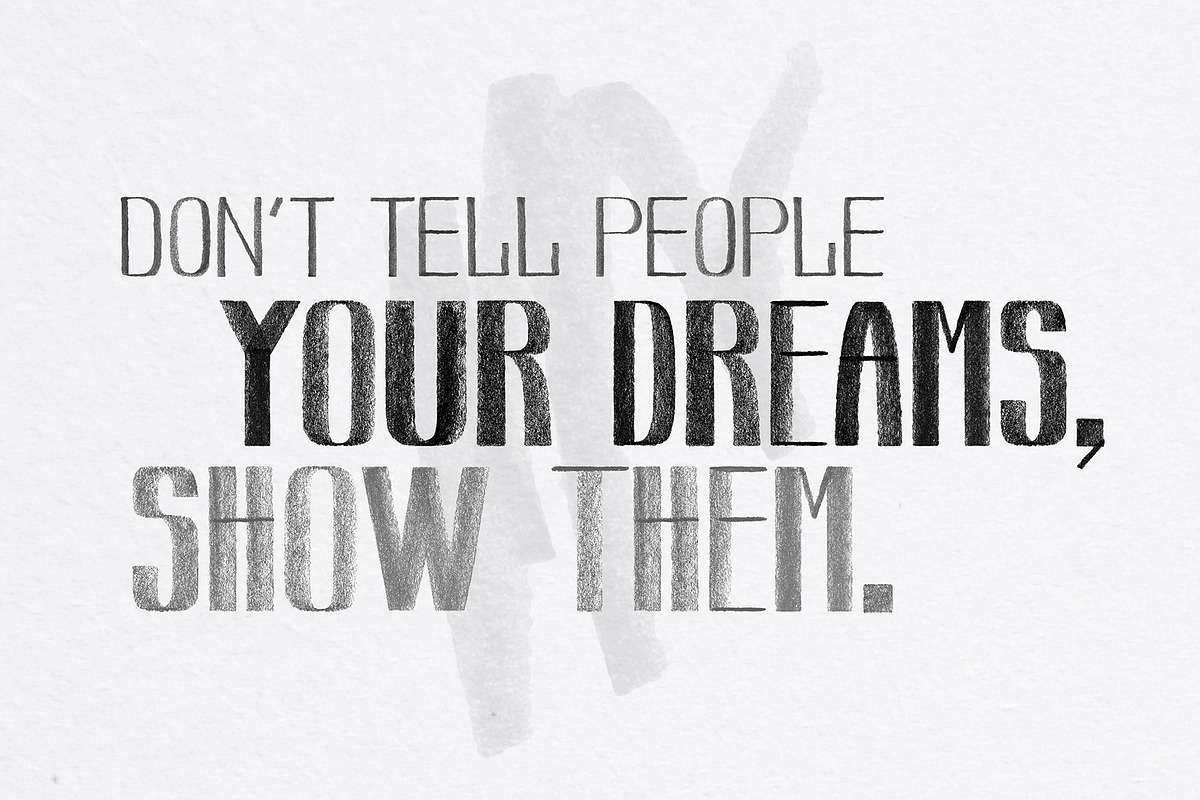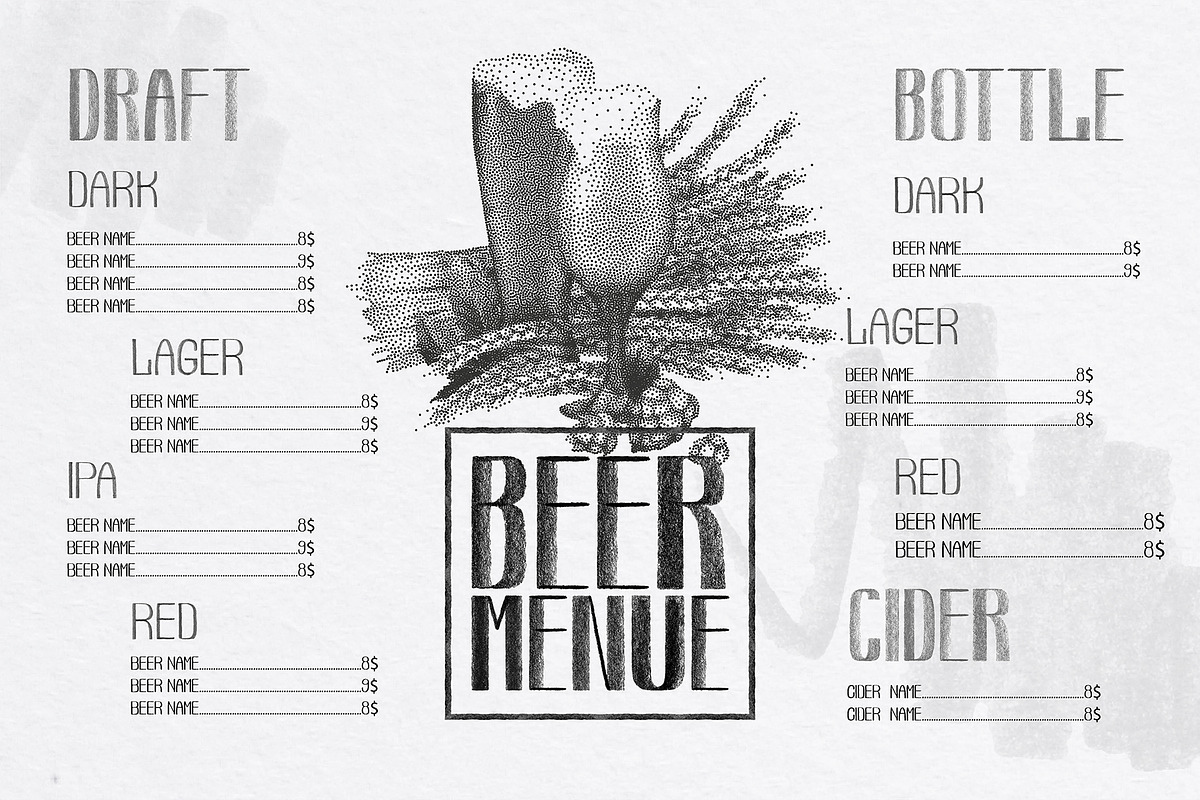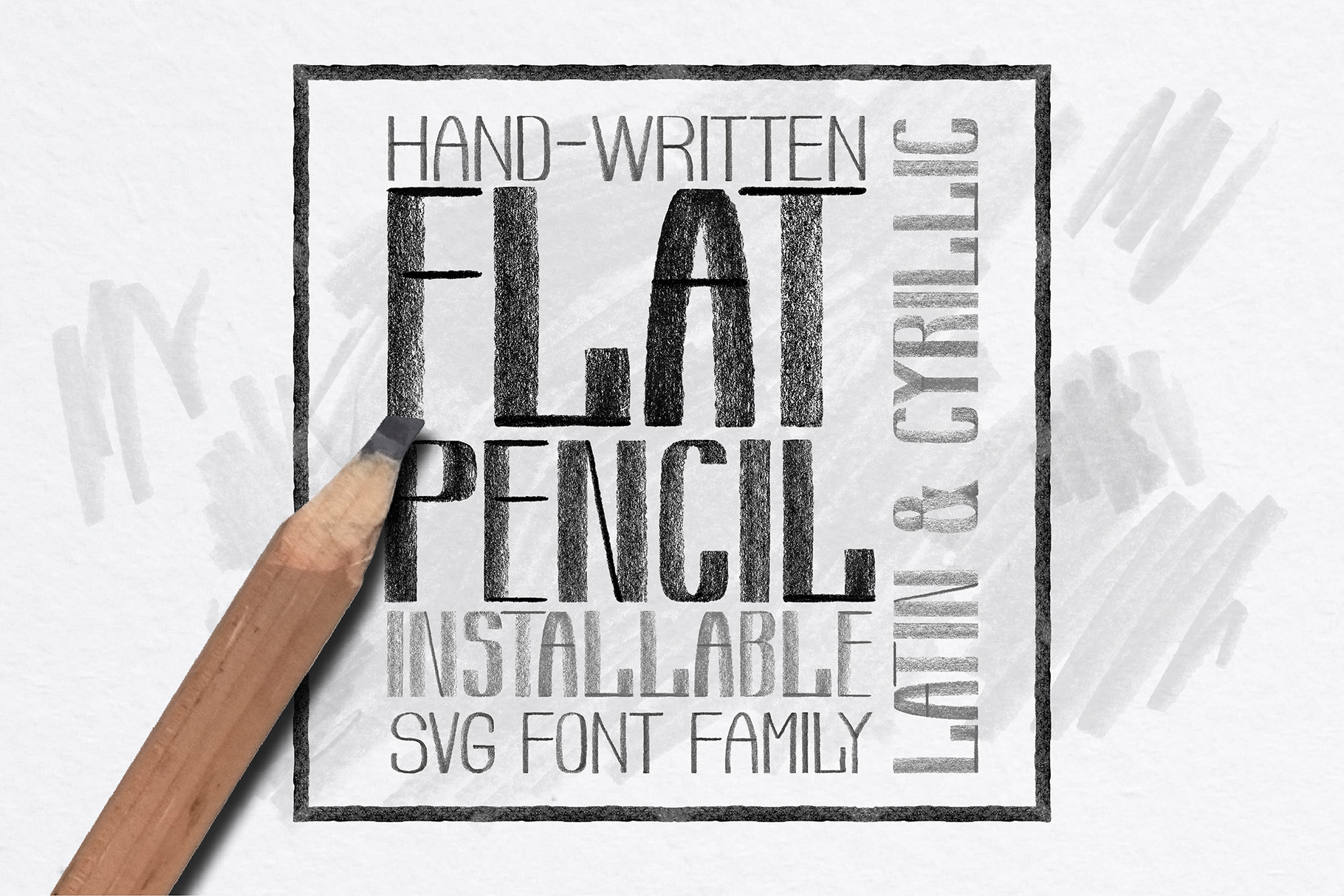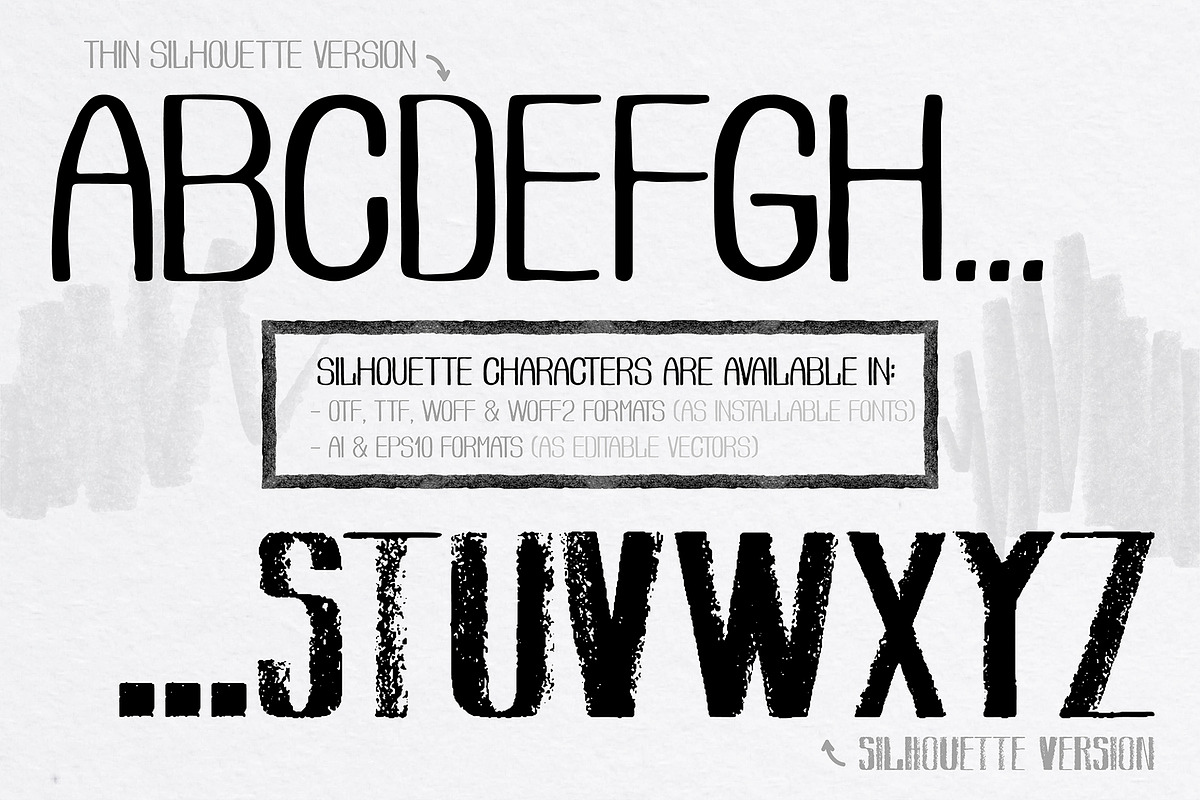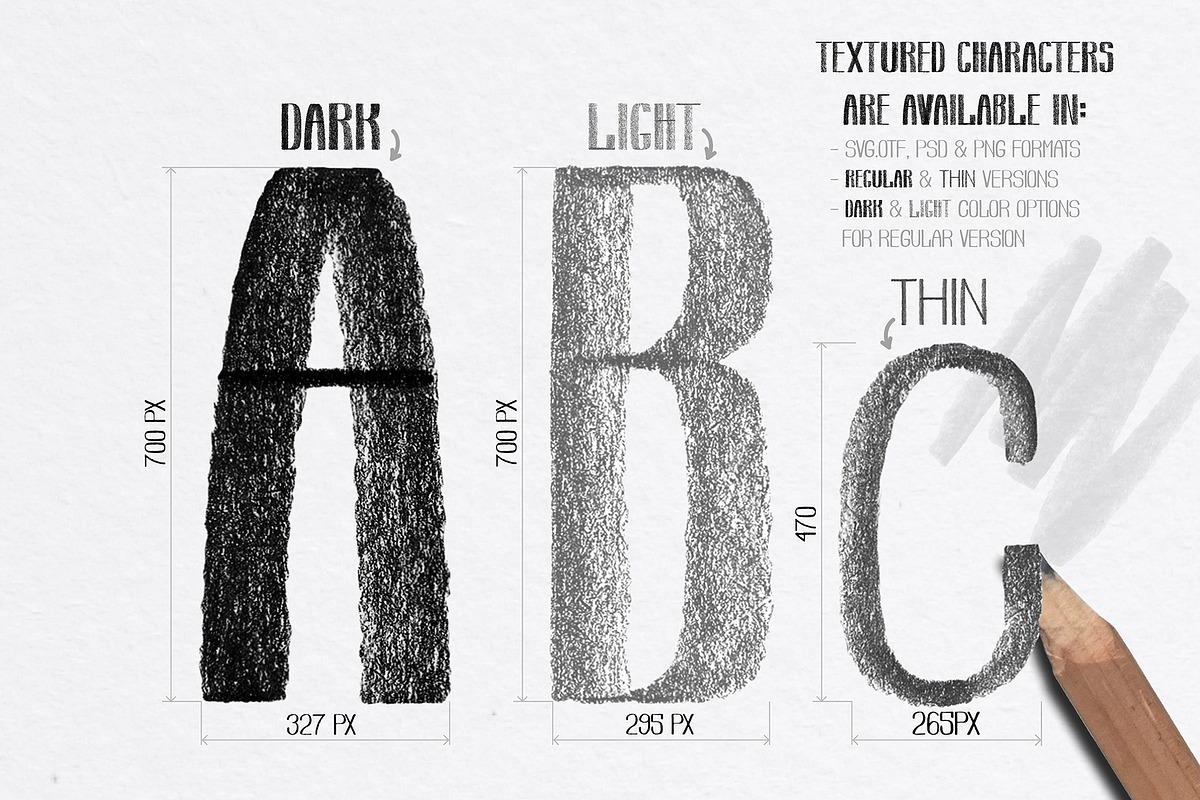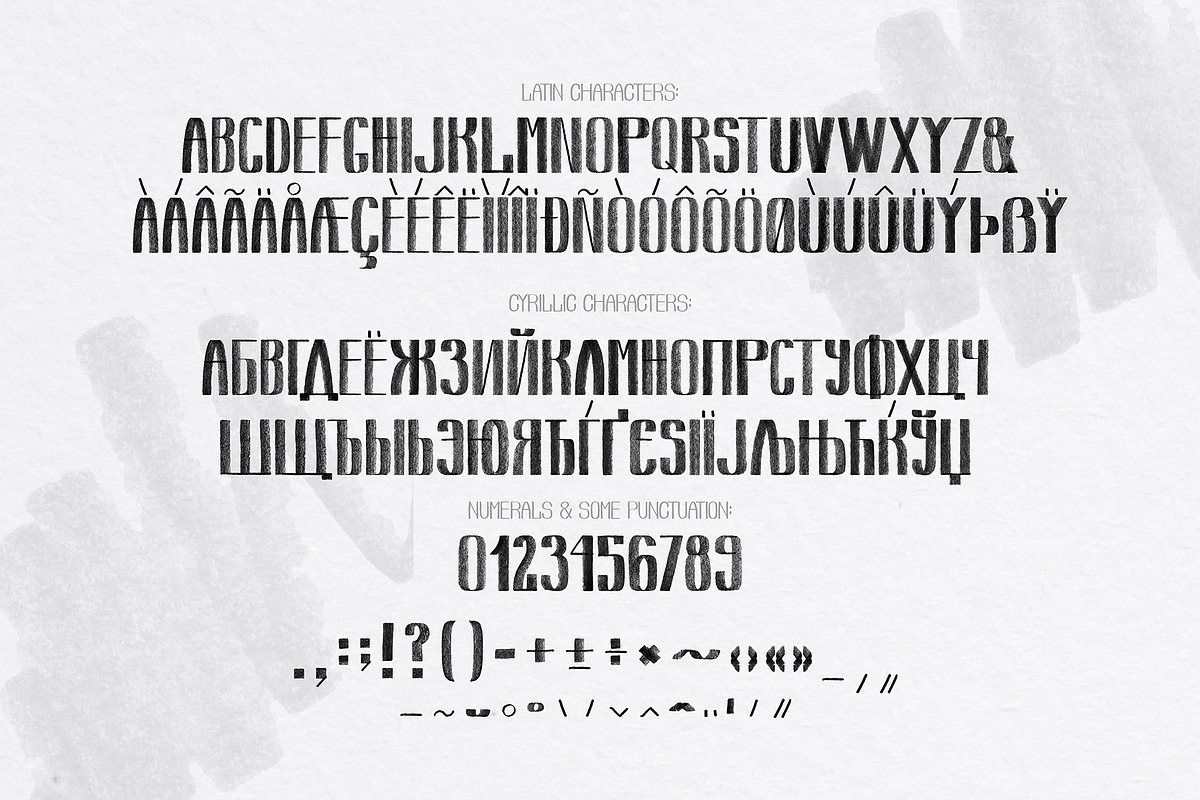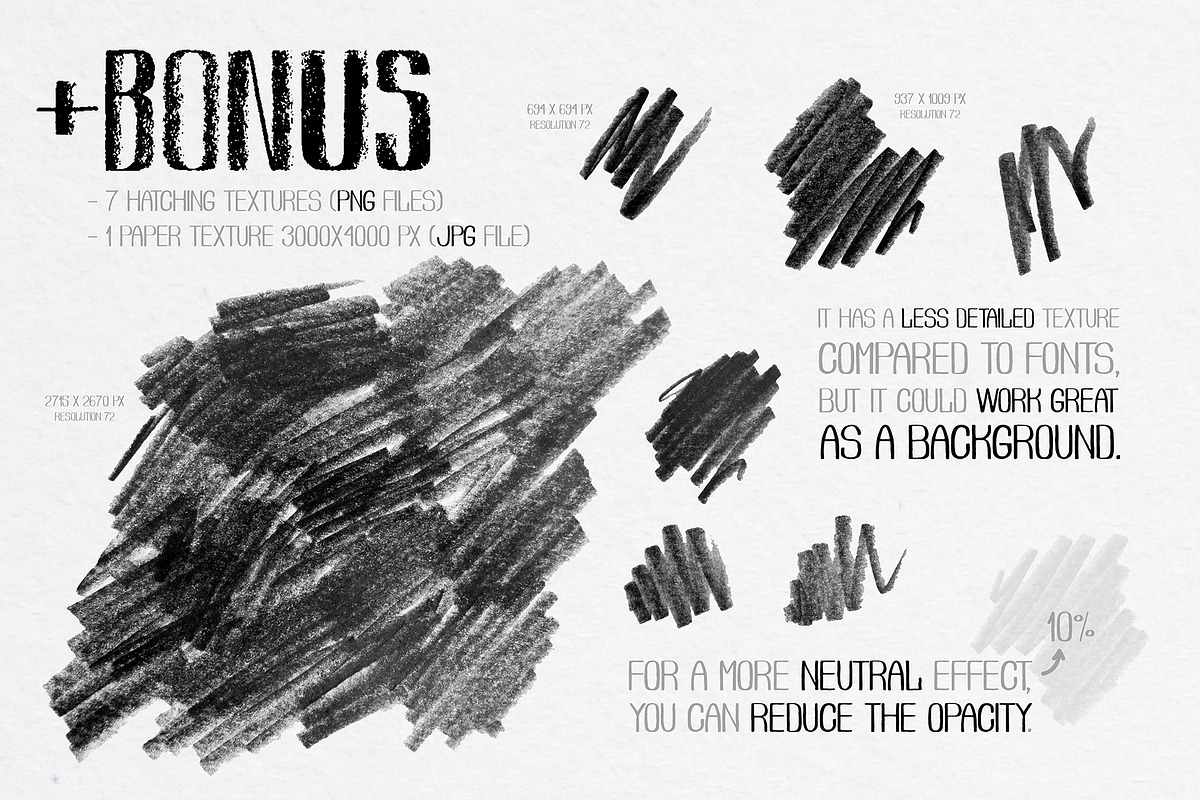
Flat Pencil - SVG font family
Flat Pencil is a hand-written font family consists of textured SVG and regular vector silhouette alphabets.
Font features:
- support of basic LATIN & Cyrillic characters, numerals and some punctuation.
- UPPERCASE characters only (it means that Lowercase characters look the same as Uppercase).